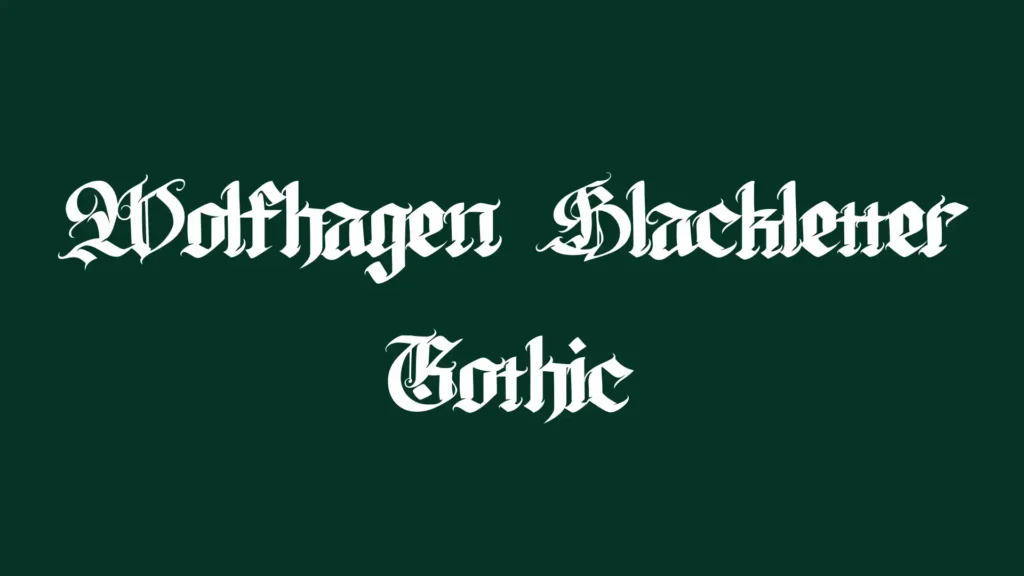
Wolfhagen Blackletter is a bold and stylish modern gothic blackletter font designed by Mohamad Farhan Ramadhan and released through his studio, Mofr24, in May 2023. Created to blend historical script geometry with a clean contemporary structure, the font is marketed as the epitome of “medieval-modern elegance”.
Wolfhagen Blackletter Font Preview
Wolfhagen Blackletter
Wolfhagen Blackletter Character Map
Wolfhagen Blackletter is a medieval font created by Mohamad Farhan Ramadhan and released through Mofrtwentyfour (2023).
Wolfhagen Blackletter Font Details
- Designer: Mohamad Farhan Ramadhan
- Publisher: Mofrtwentyfour
- Category: Medieval font
- Glyphs: 365